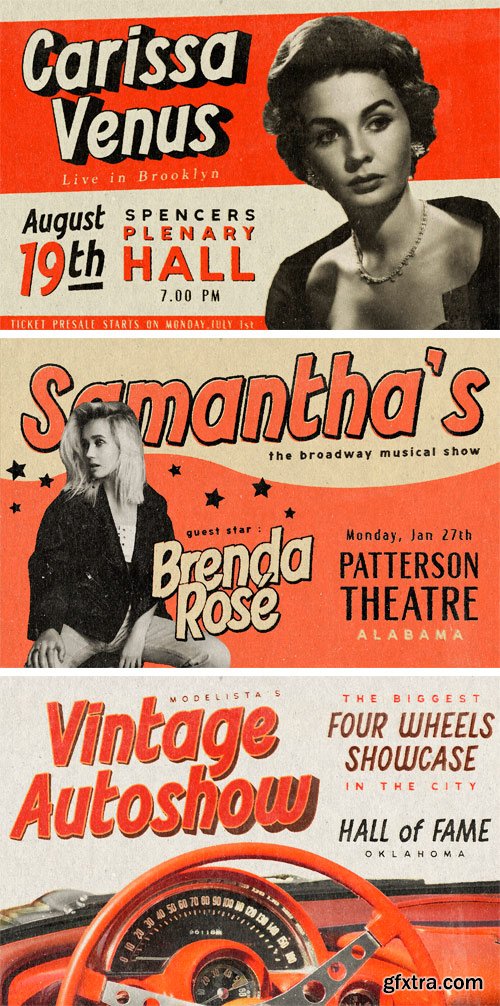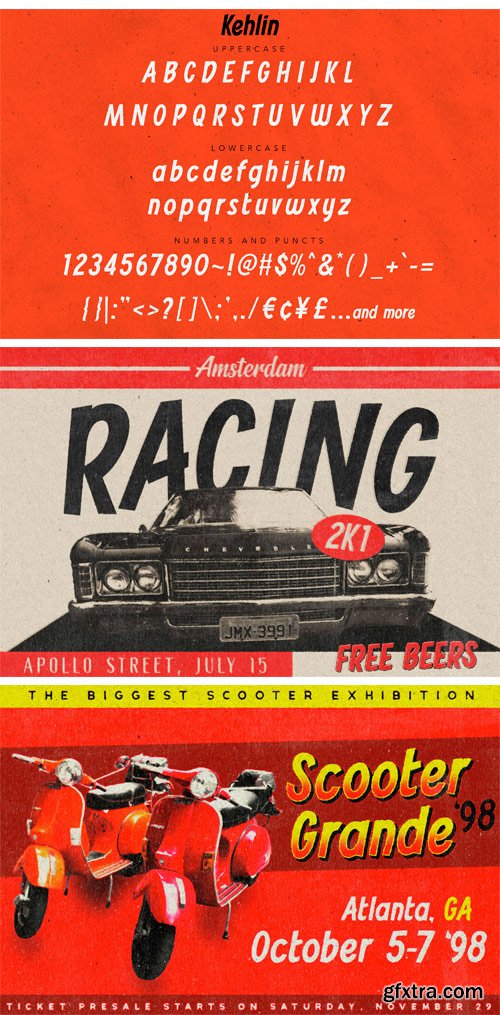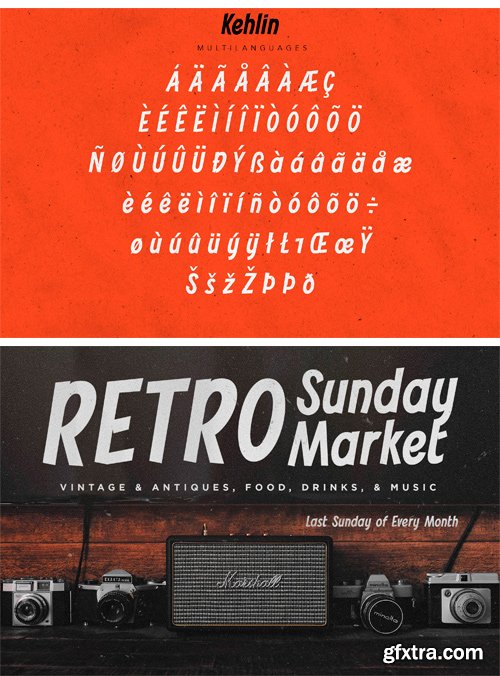
CM - Kehlin - Vintage Casual Font 1948097
Please welcome, KEHLIN!, a time machine font for you to get back to those magnificent era for the sake of old retro and vintage stuff. Perfectly fit for your headline content, logo, branding, posters, anytime - anything, oldsport :)